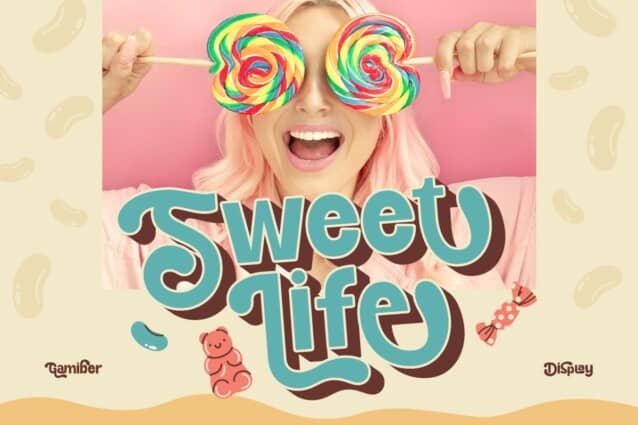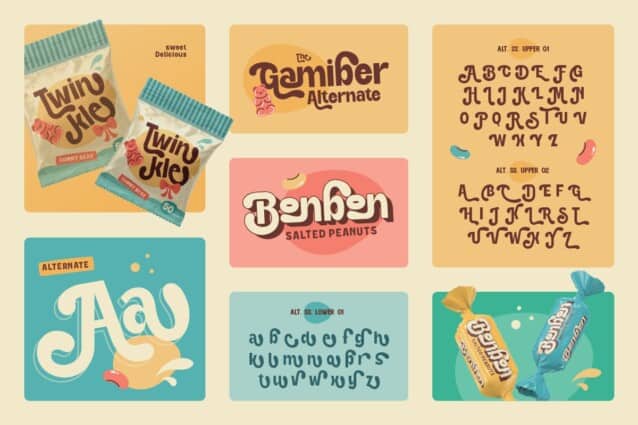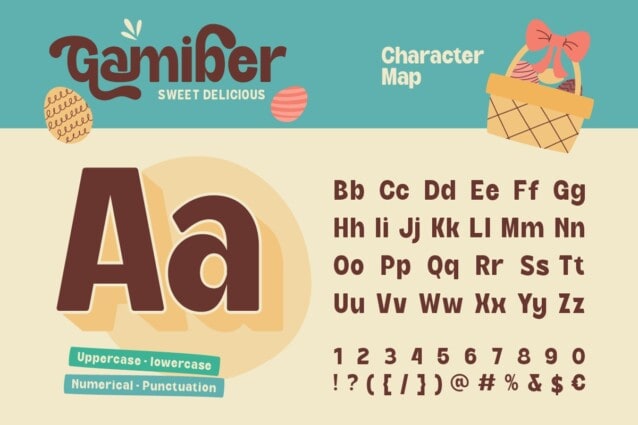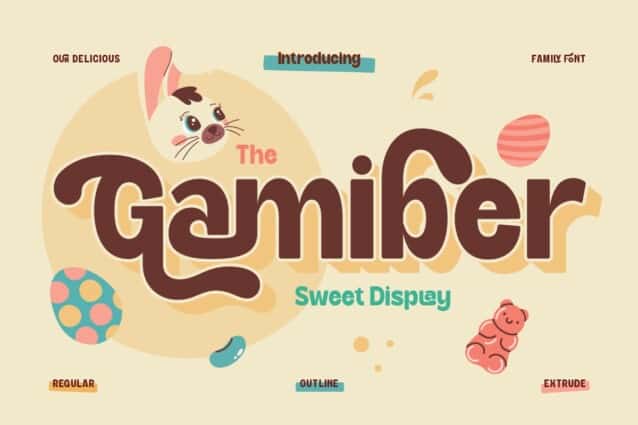
Gamiber Font
Gamiber Font is a bold retro sans display typeface created by Burntilldead with a striking extruded style. It’s perfect for cheerful and eye-catching design projects. Gamiber comes in three styles: Regular, Outline, and Extrude, making it super easy to mix and match for your designs. Whether you’re working on branding, packaging, posters, or social media, this font is a great choice—especially for food-related themes, nostalgic designs, and anything kid-friendly!